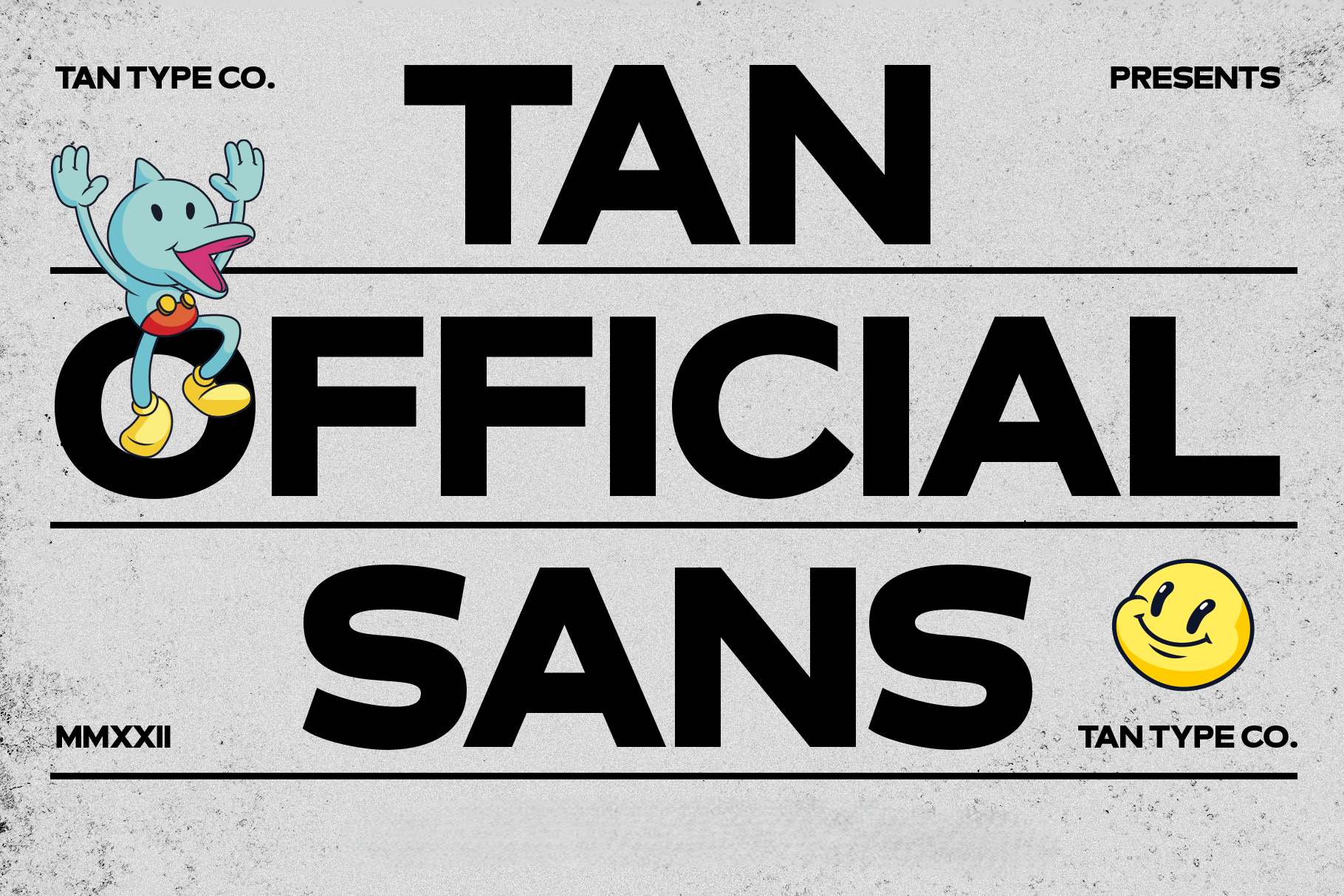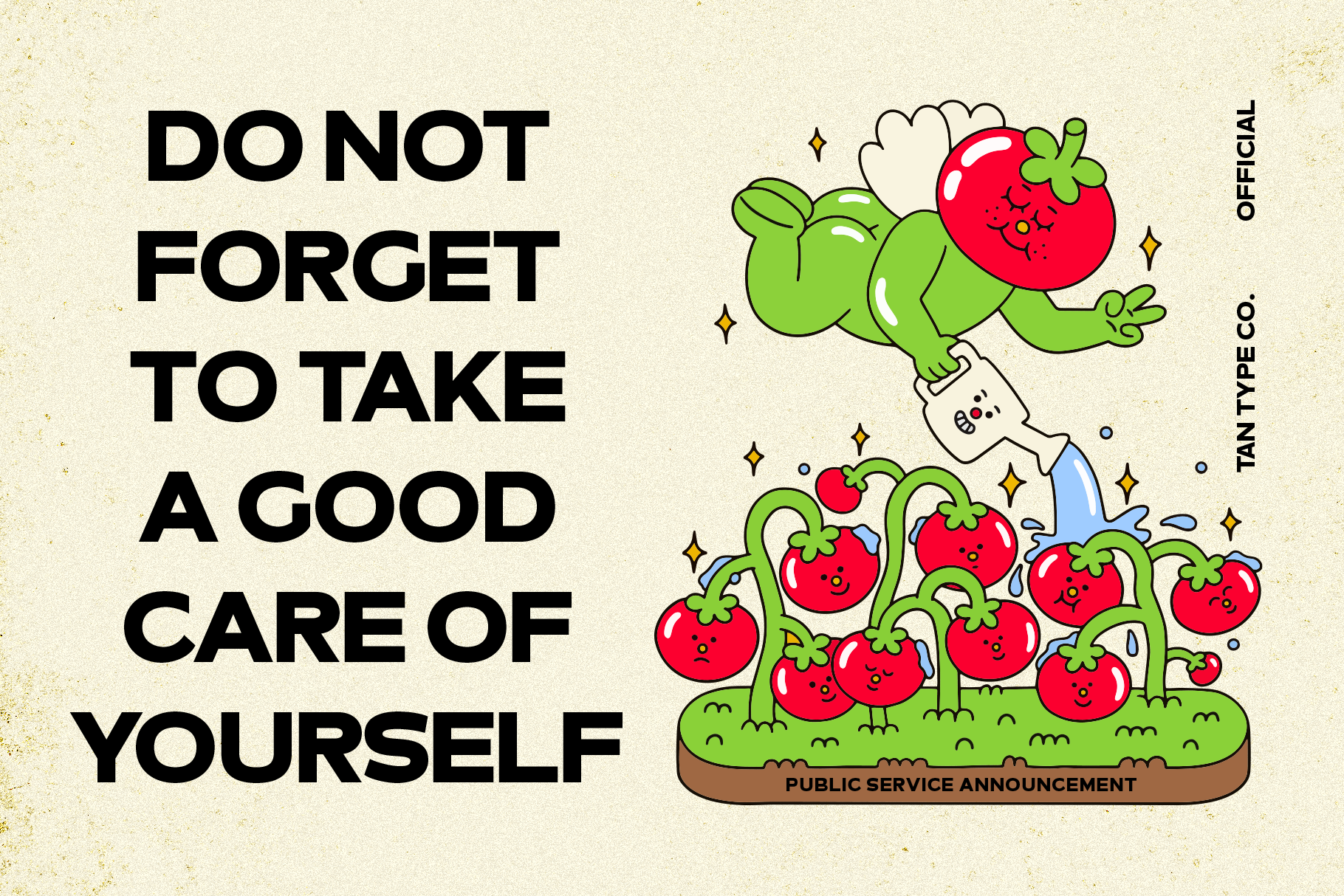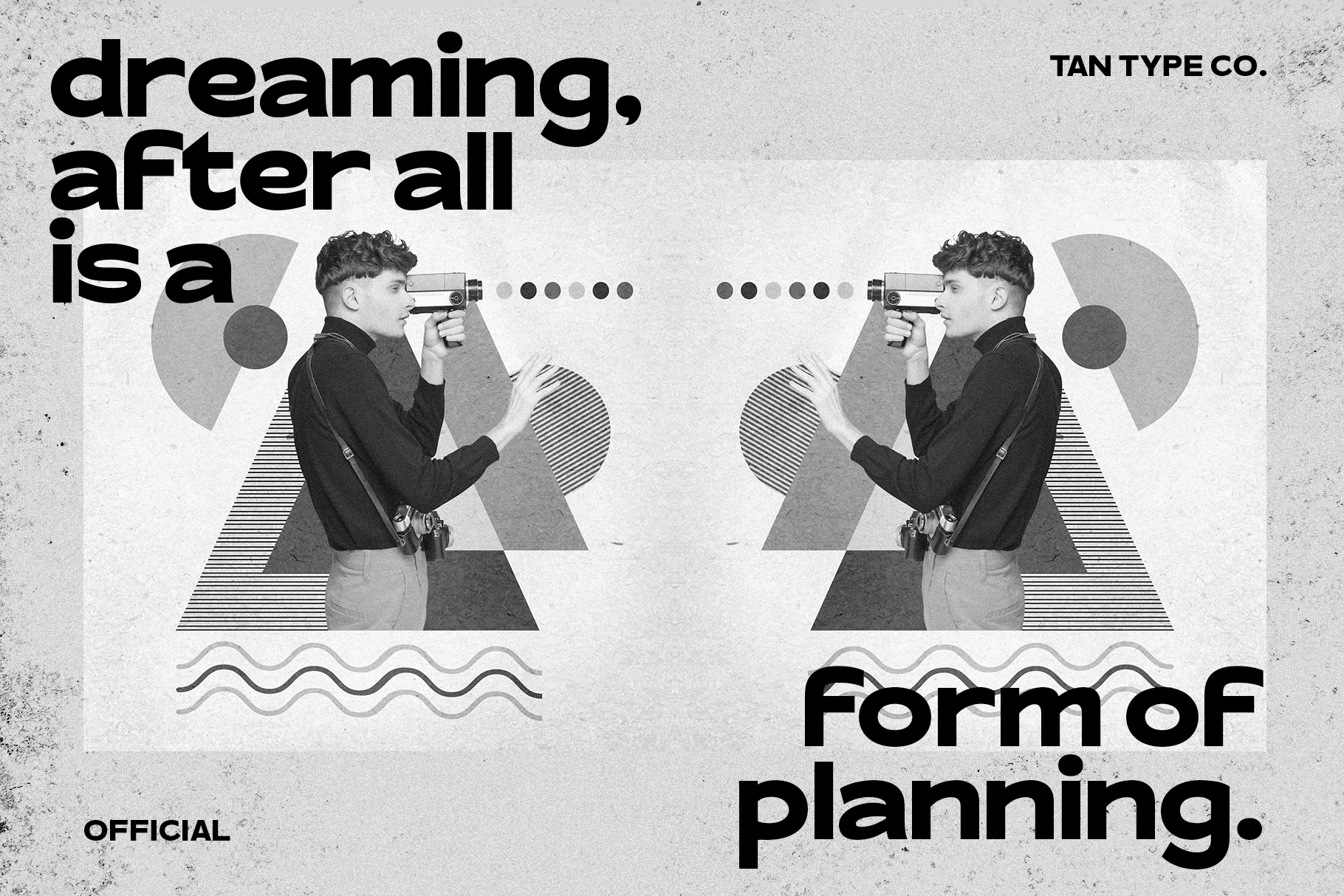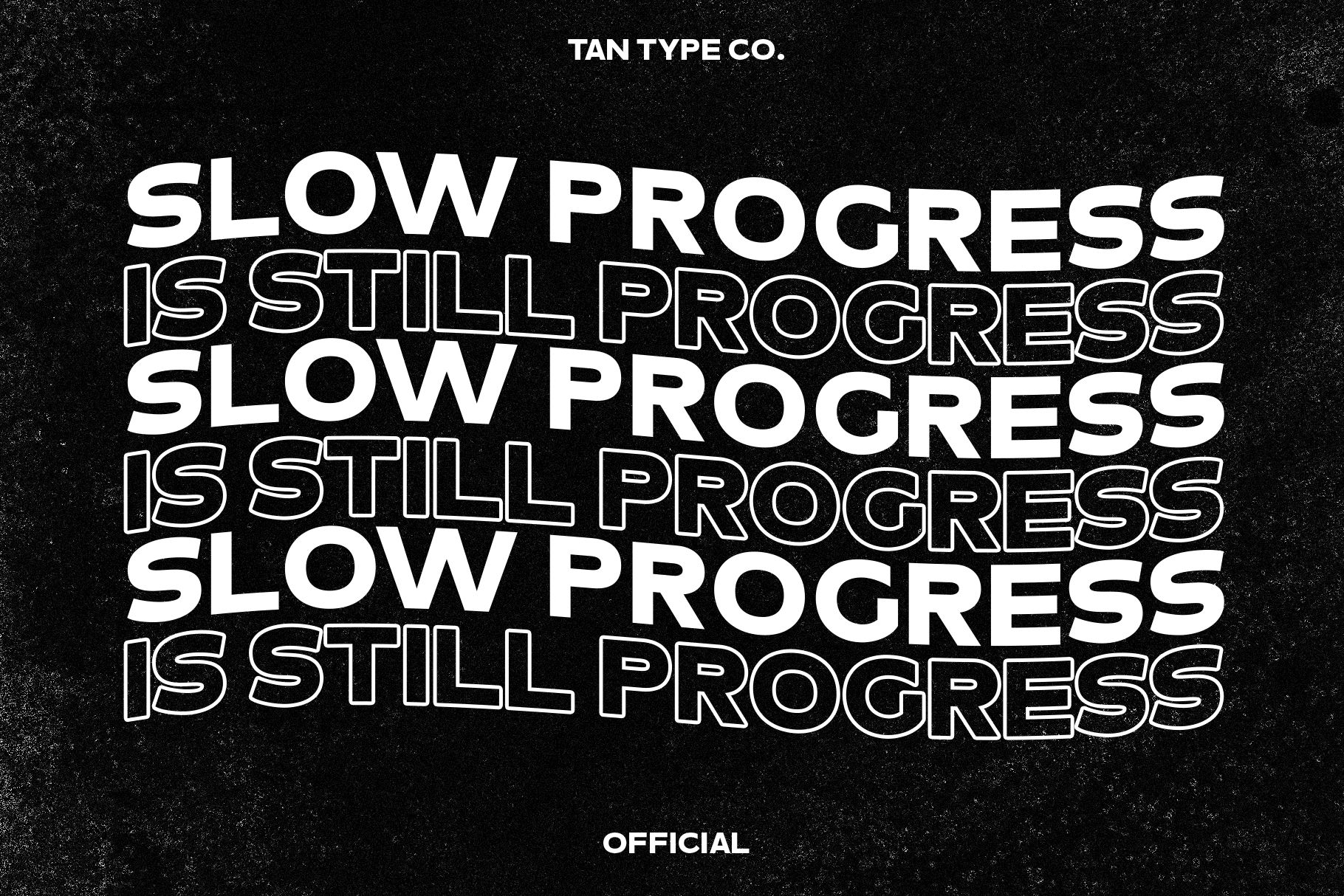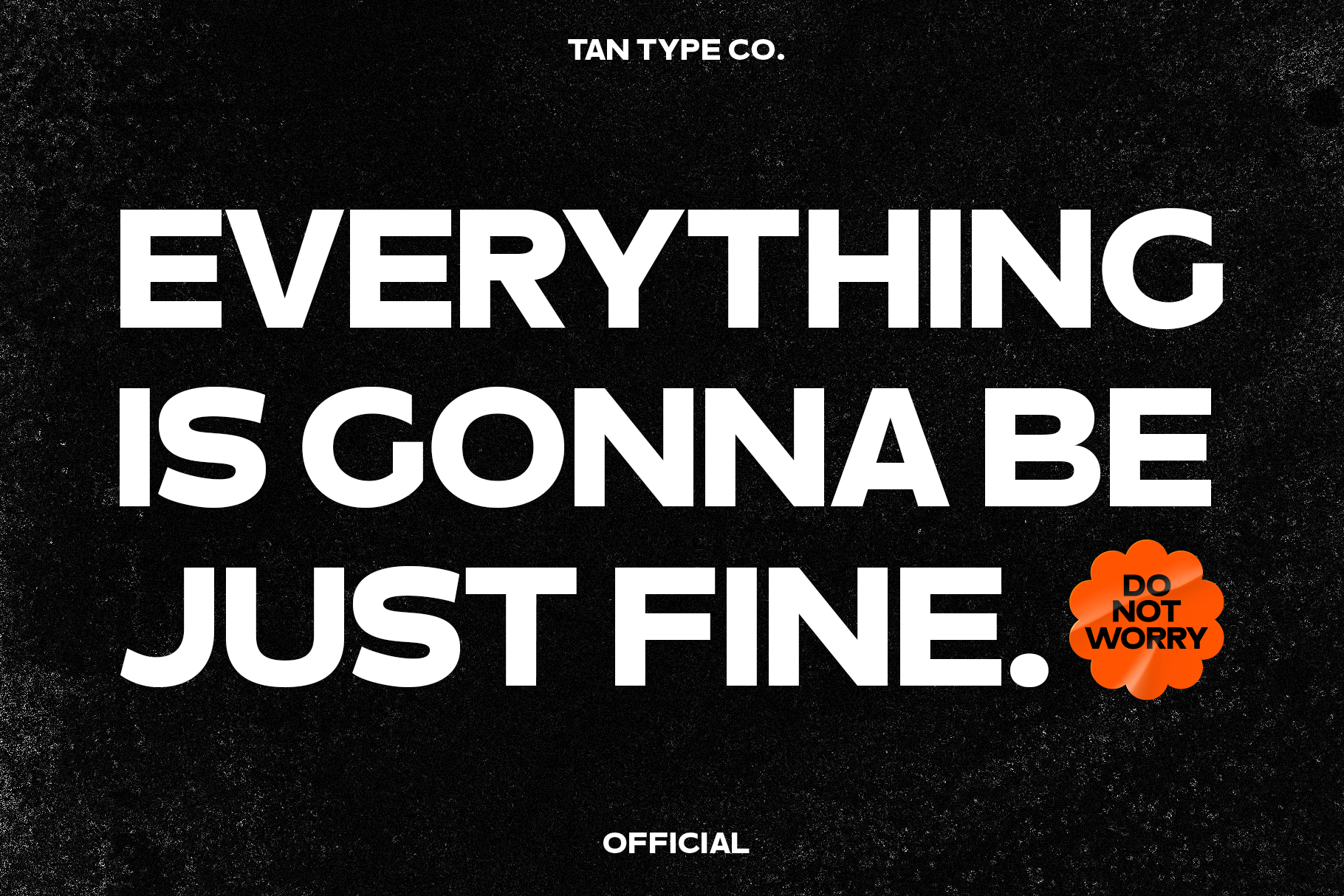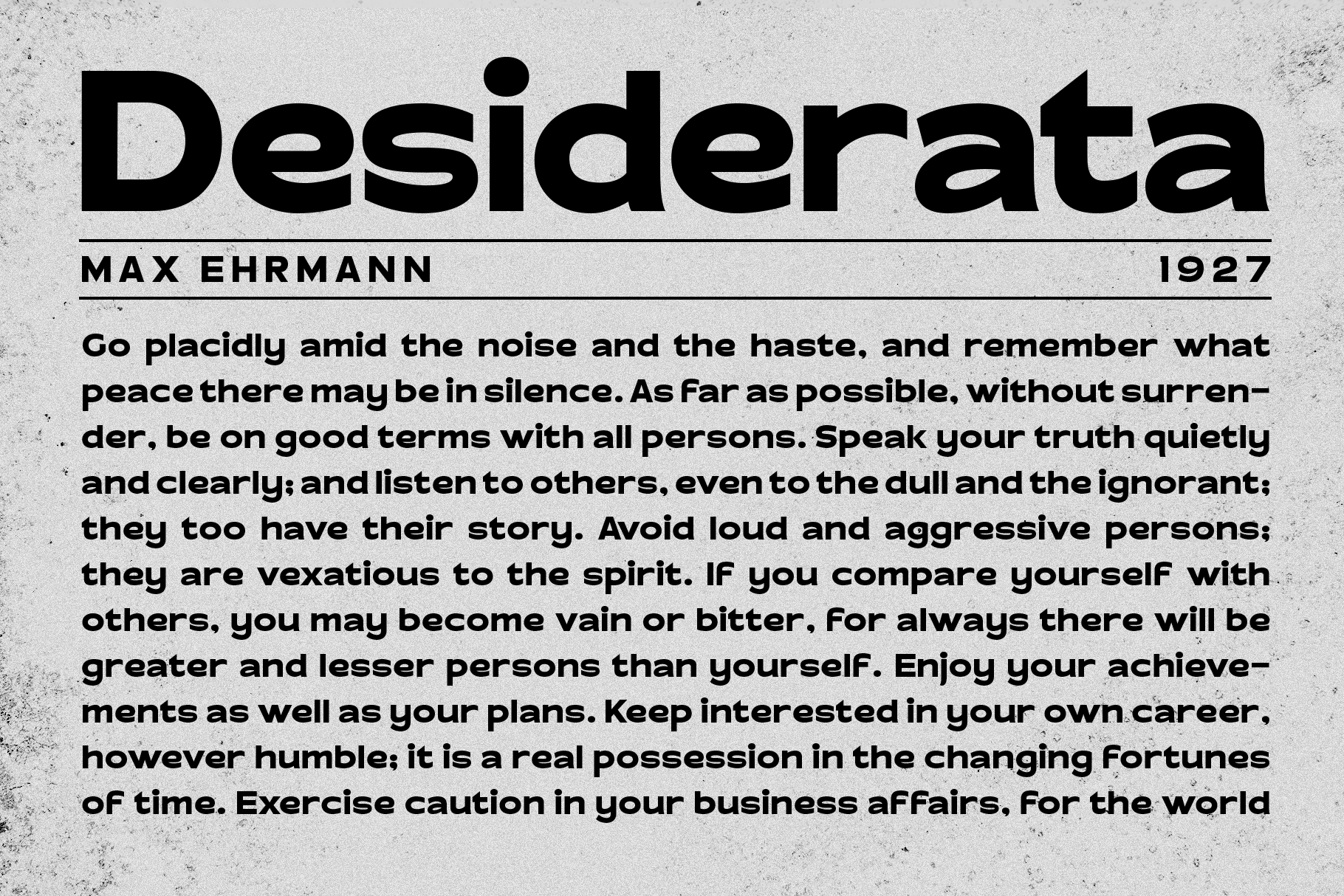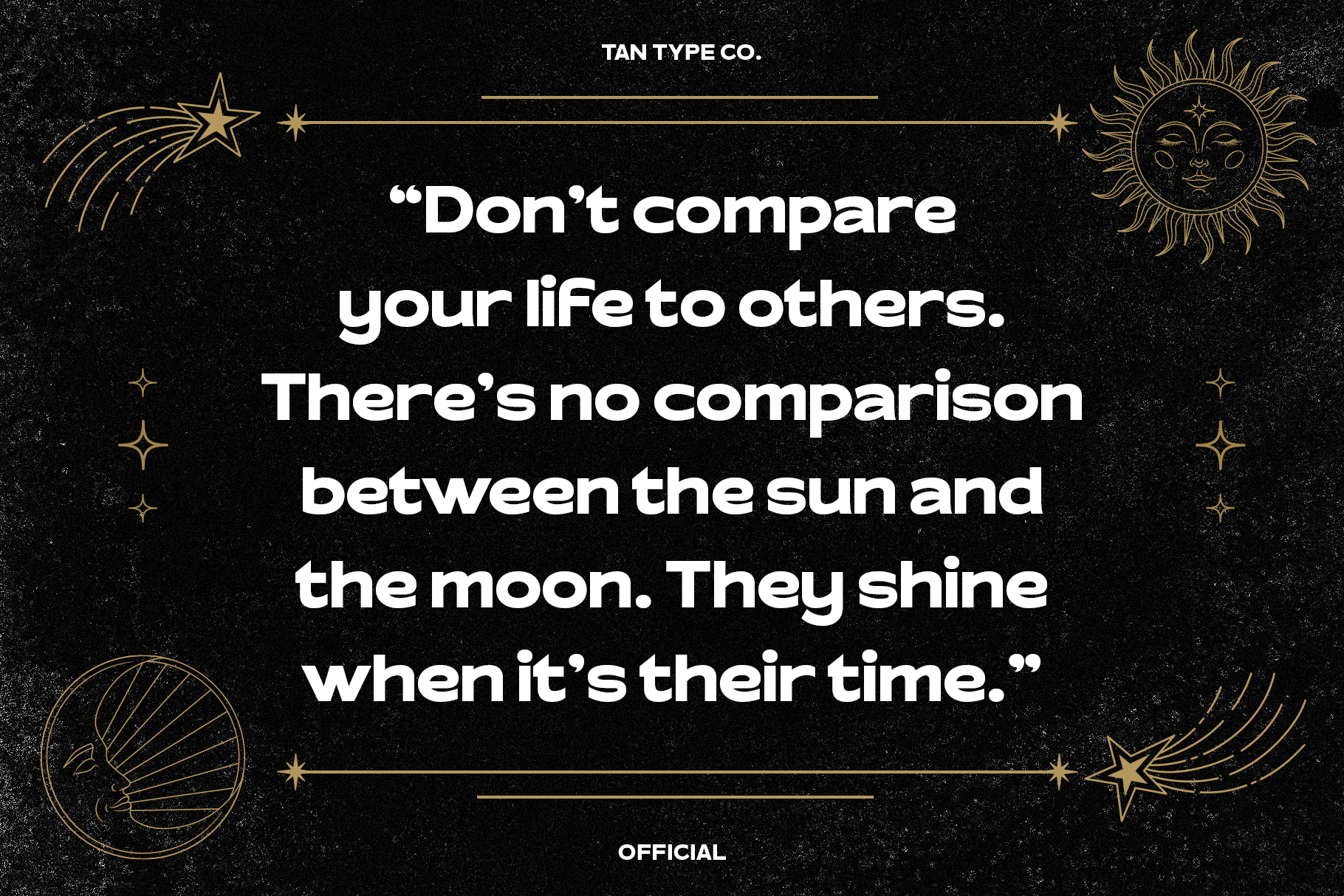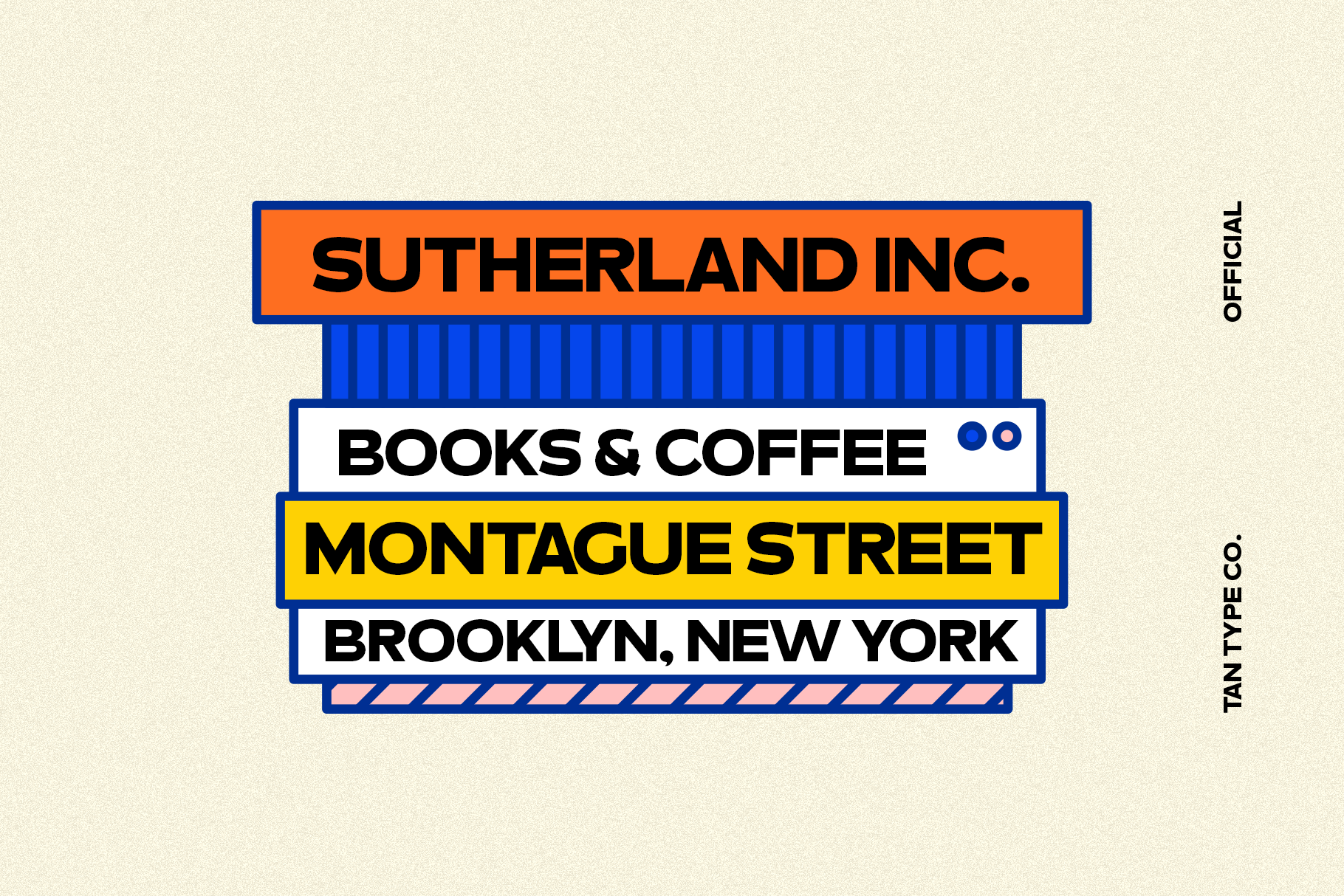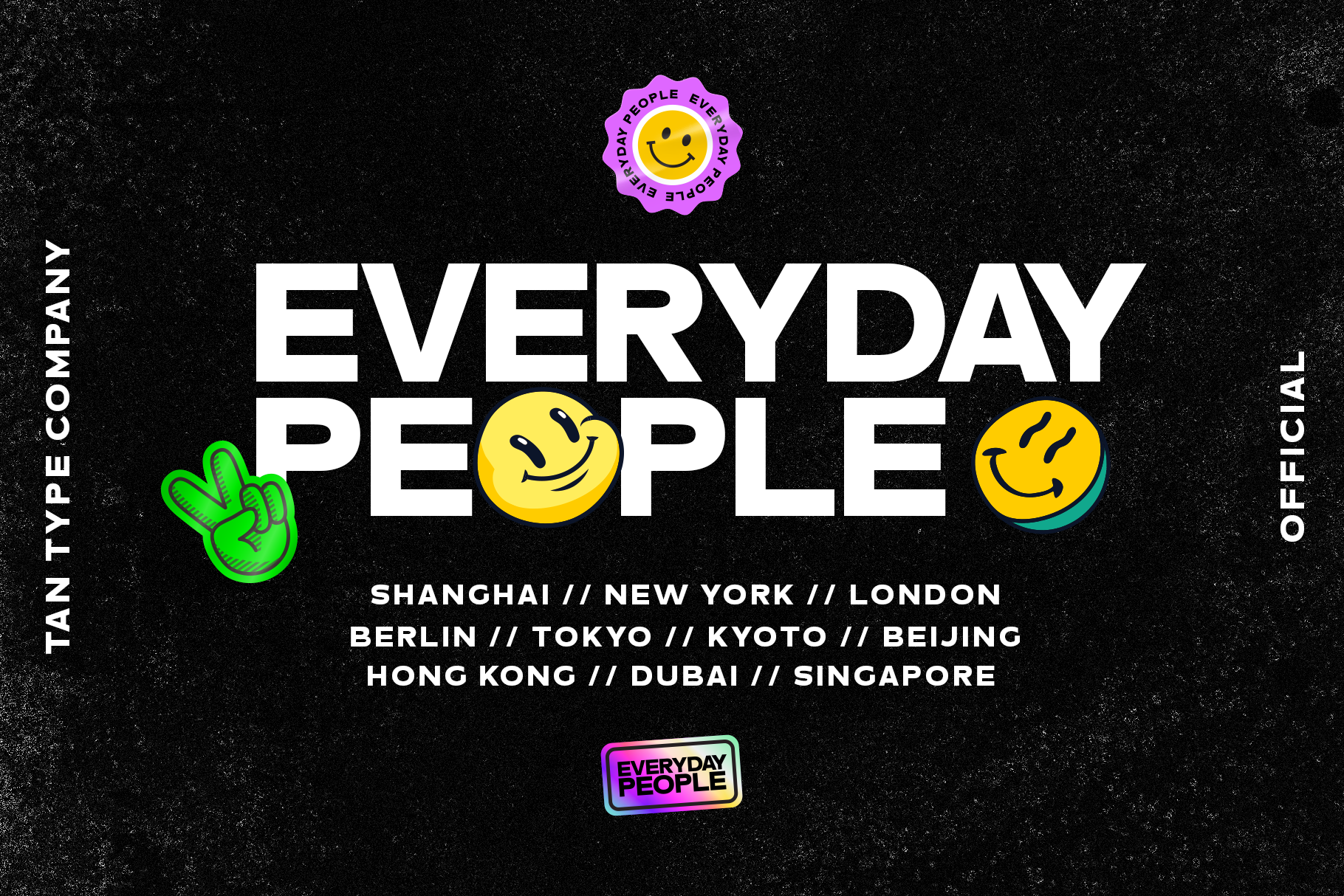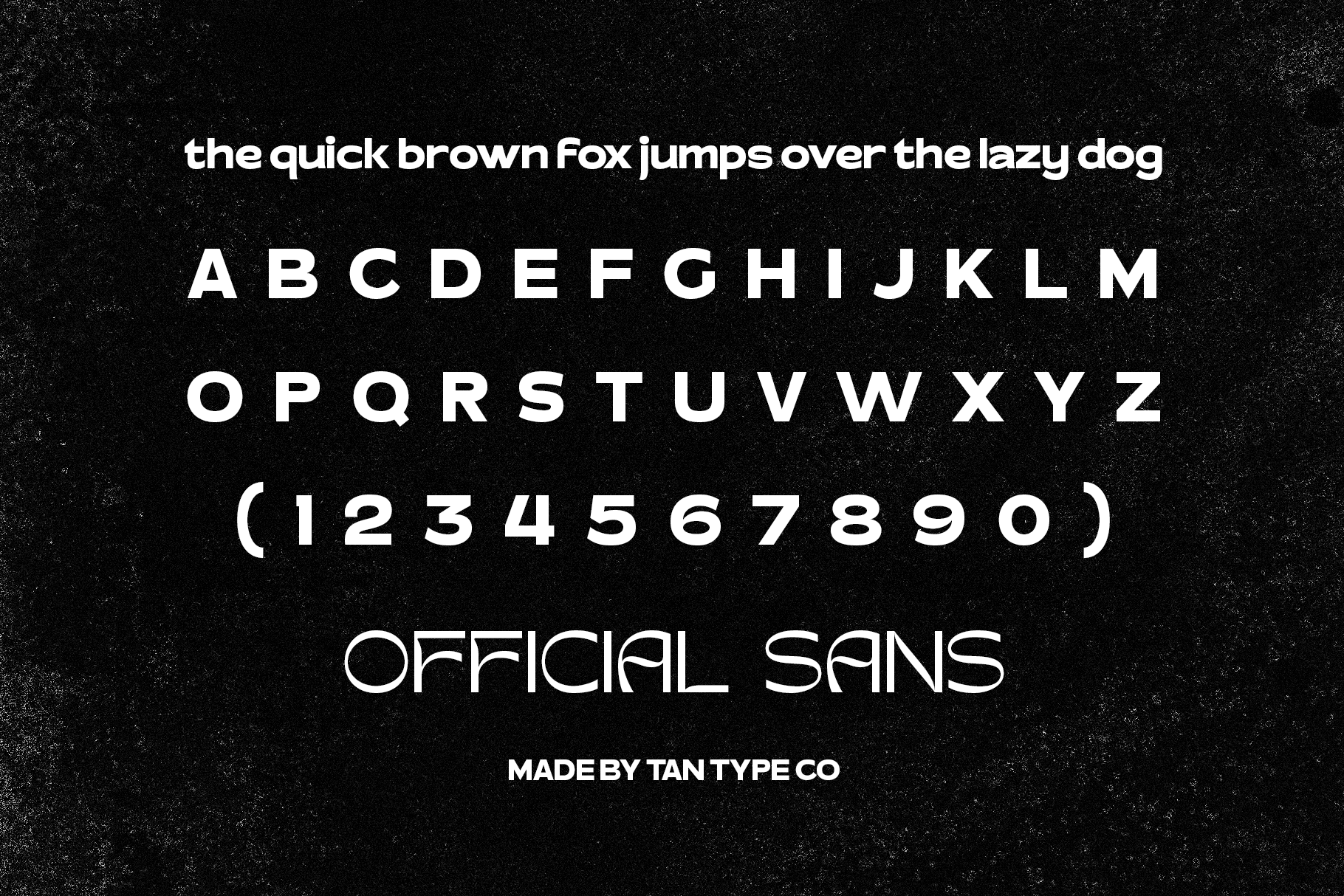
OFFICIAL SANS
Official Sans is a bold, modern sans serif typeface that commands attention with clean lines and strong geometry. This font blends corporate structure with a playful edge, making it ideal for branding, posters, headlines, and editorial layouts. With a confident, authoritative look and just the right touch of fun, TAN Official Sans brings personality to any project without sacrificing professionalism.